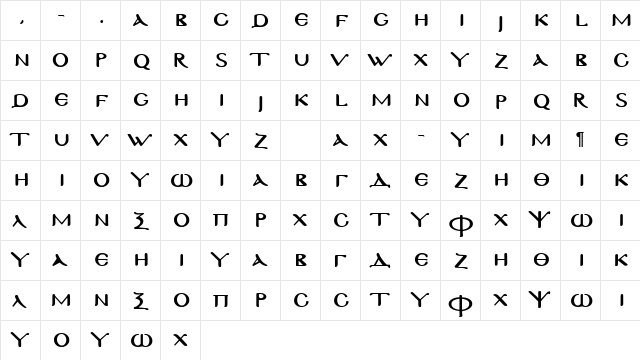
UB-Byzantine Normal
Design Context for UB-Byzantine Typeface
UB-Byzantine takes a measured approach to typography — its balanced proportions and neutral character make it a reliable workhorse for both digital and print work.